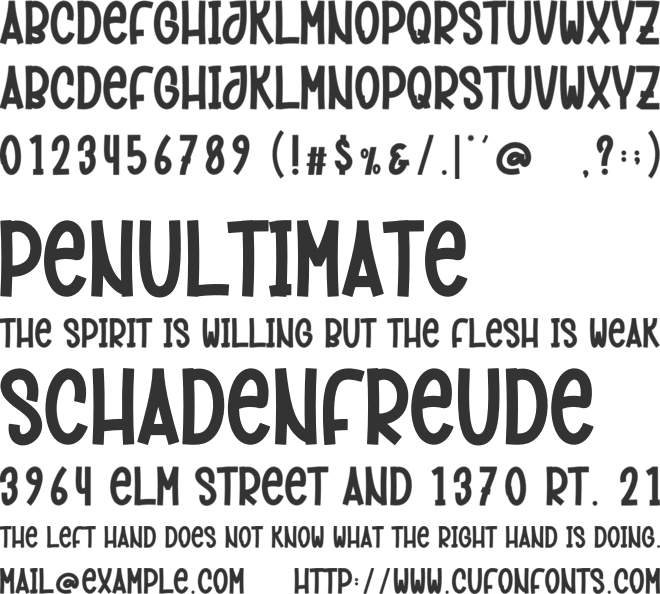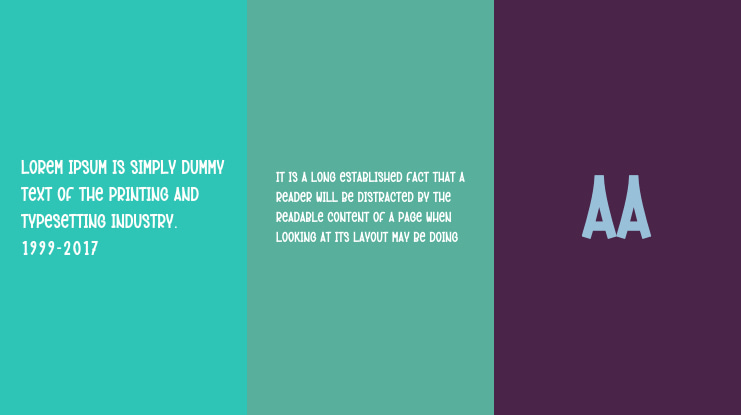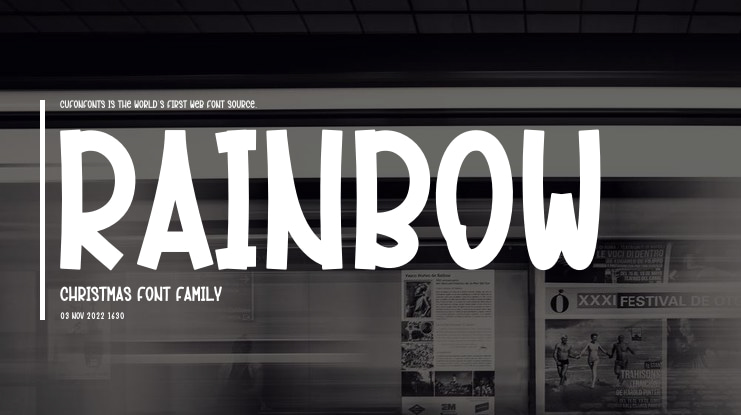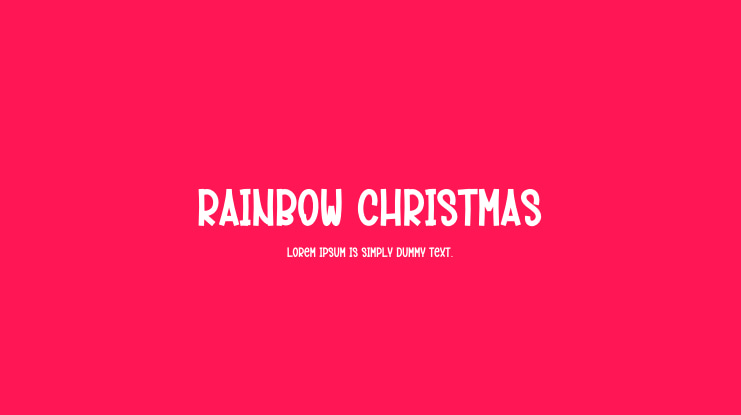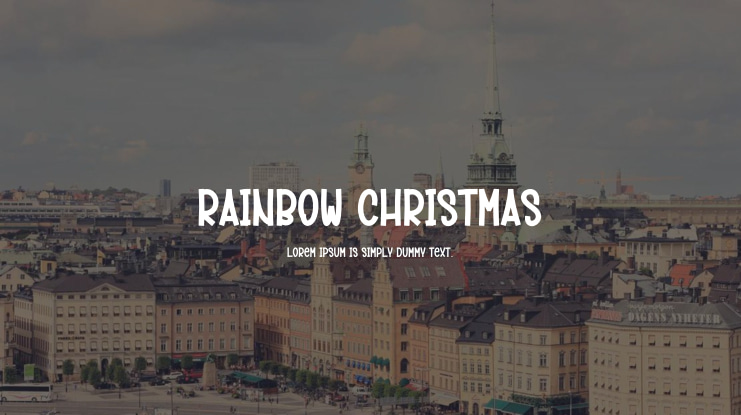
The latest style fonts we offer are ideal for various applications, including wall displays, wedding invitations, social media logos, advertisements, product packaging, product design, labels, photography watermarks, invitations, stationery, and any project that requires a touch of hand-crafted elegance.